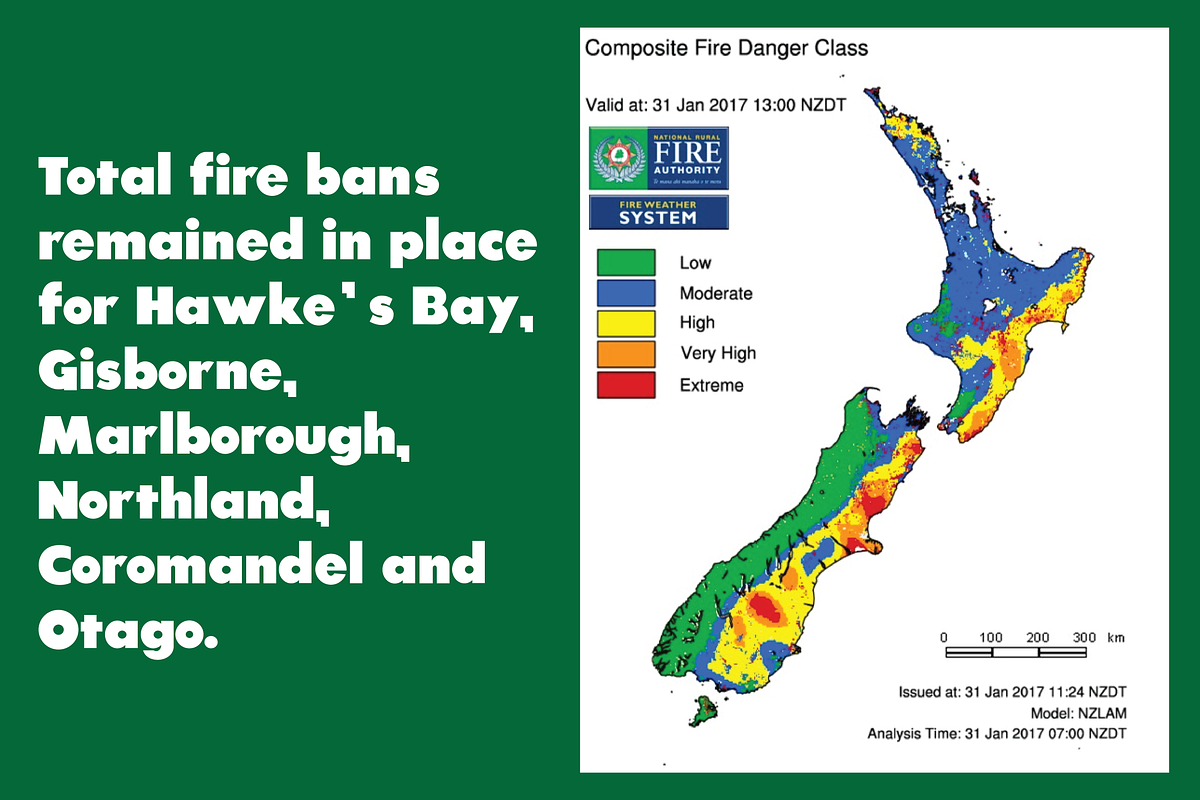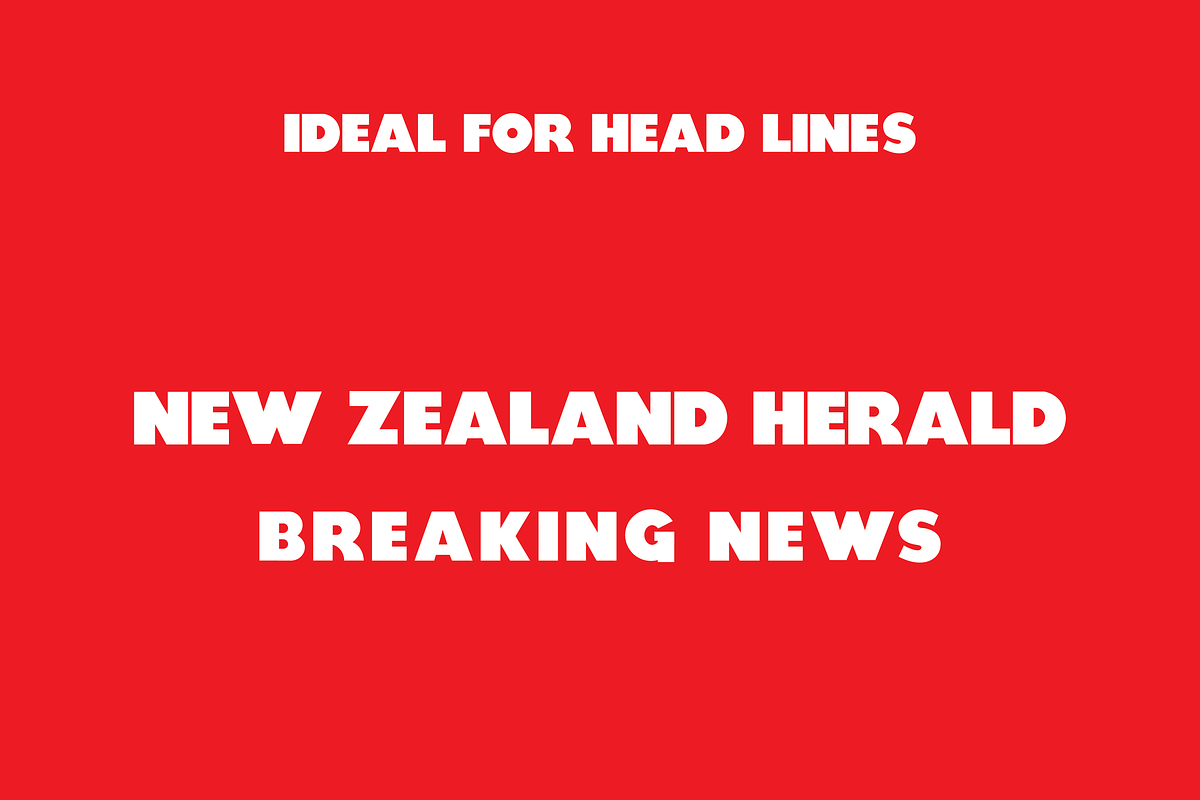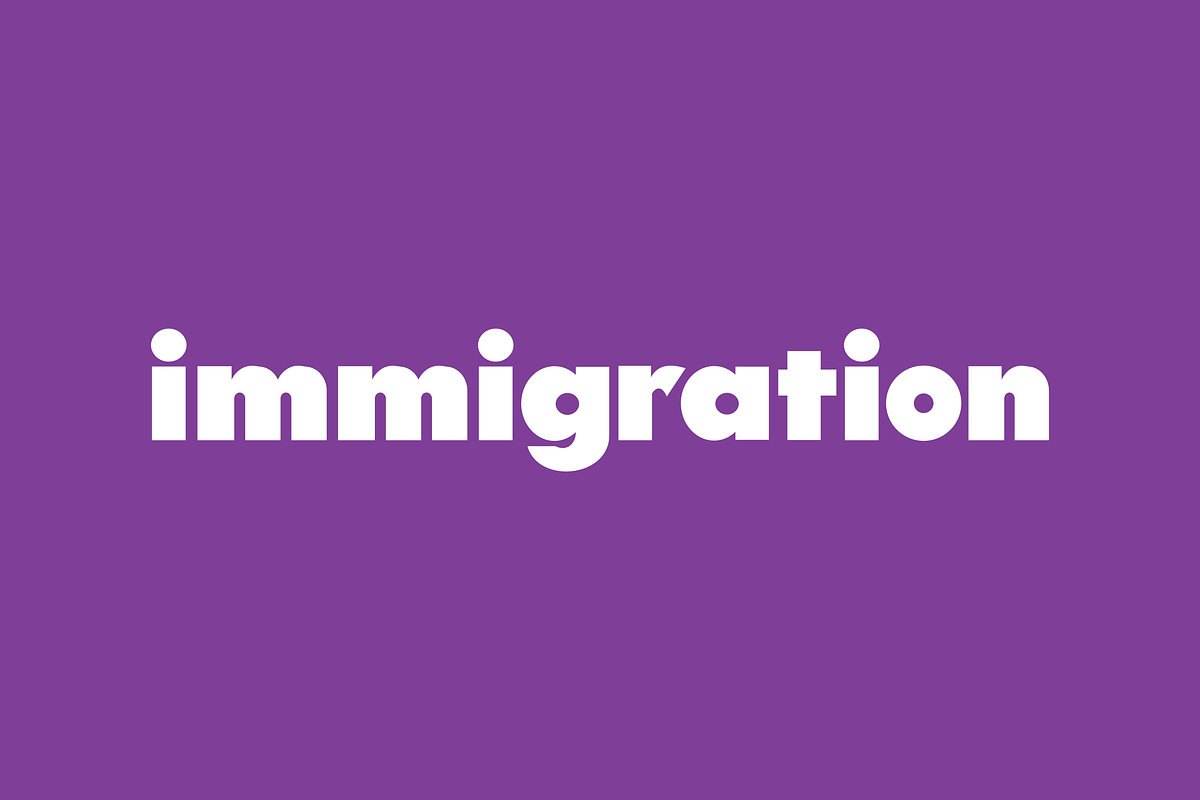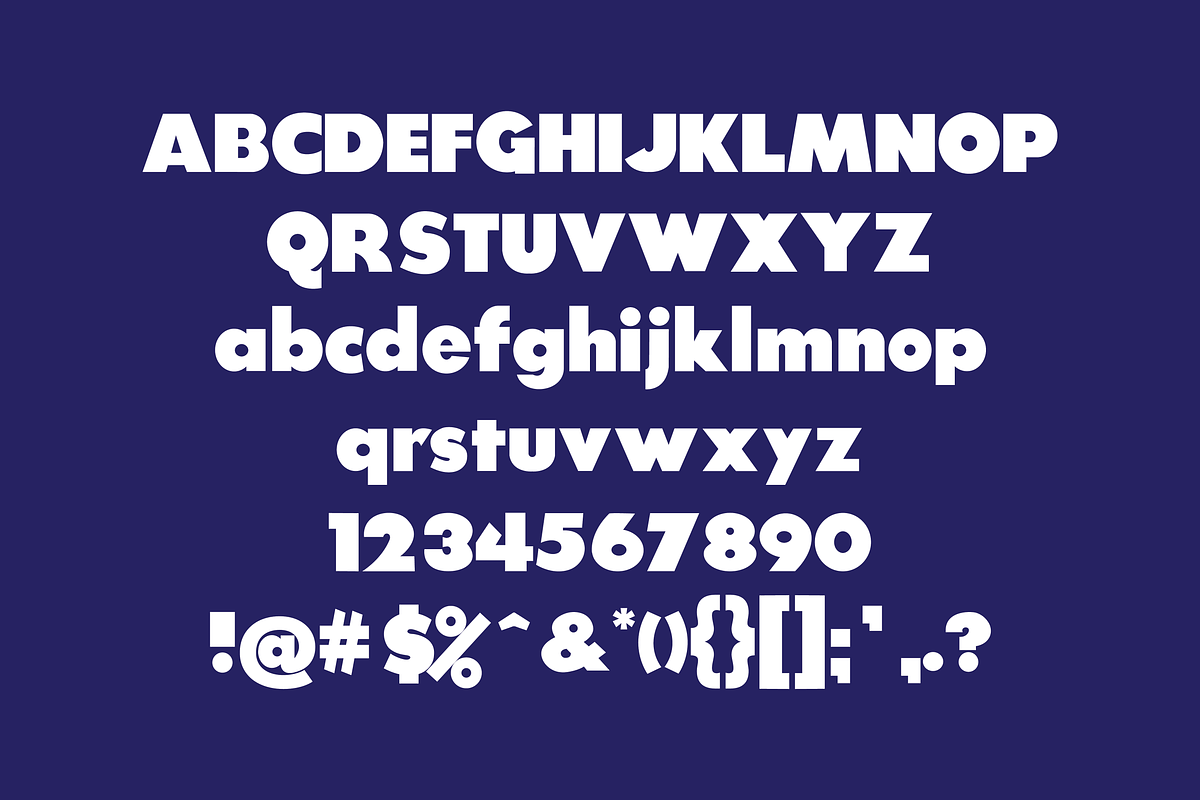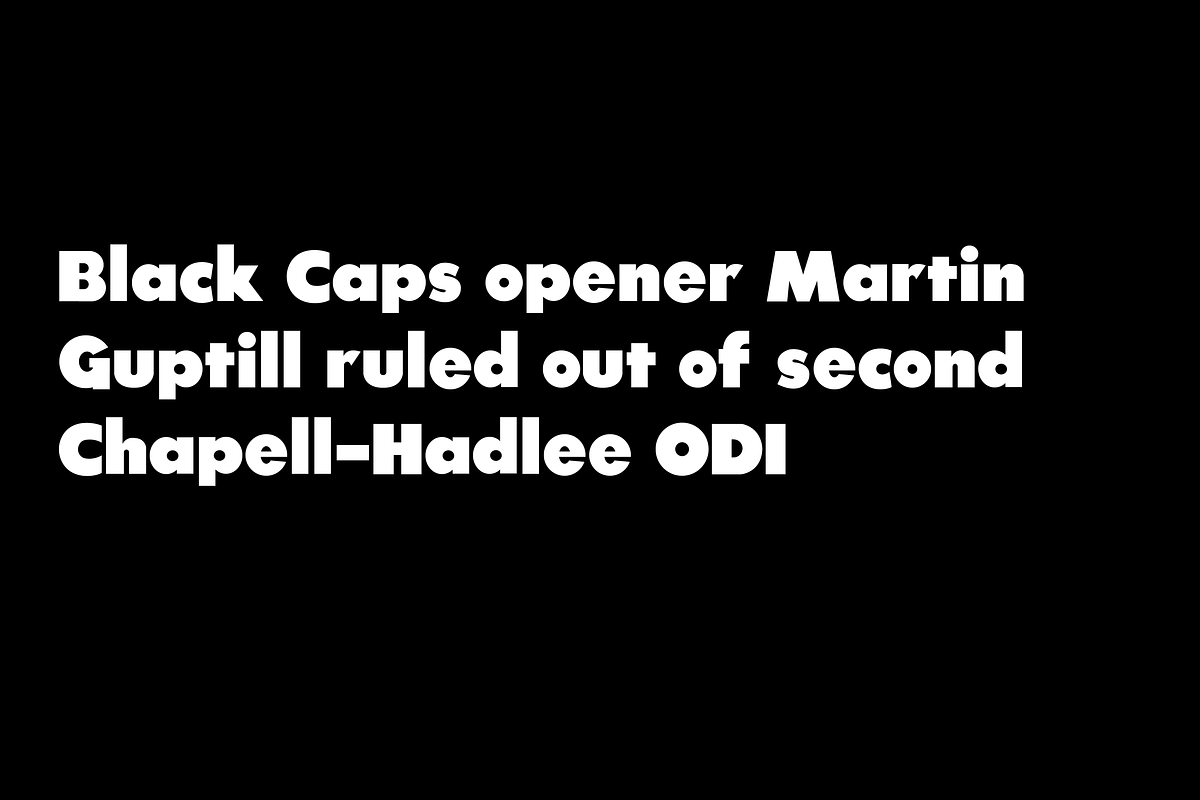
Kabadi-Big Font
Kabadi-Big Font by Jadugar Design Studio is a font selected for branding, posters, packaging, typography.
Why Kabadi-Big Font is worth a look
Kabadi-Big Font by Jadugar Design Studio fits naturally into Branding, posters, packaging, typography.